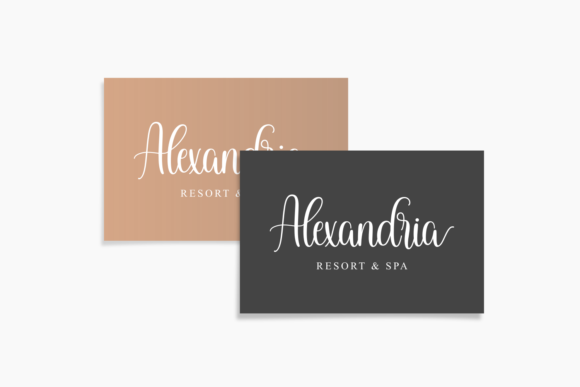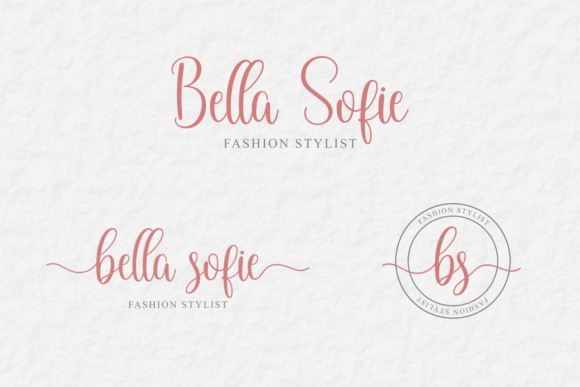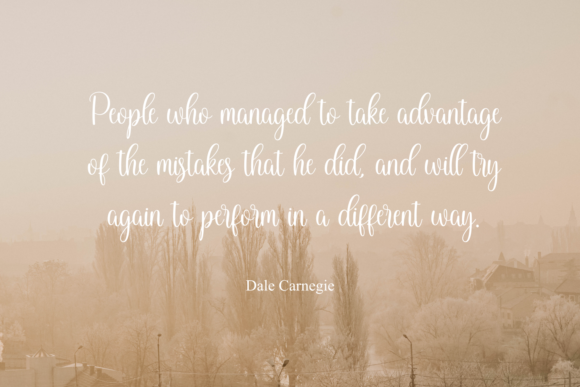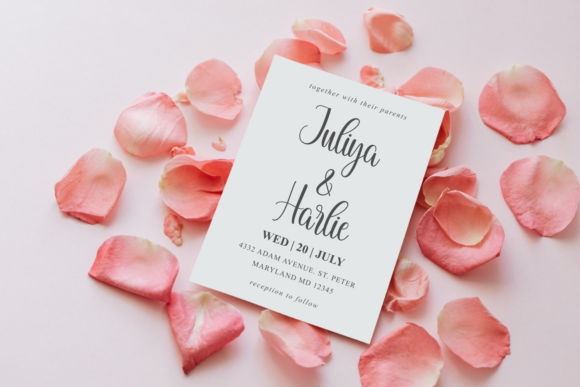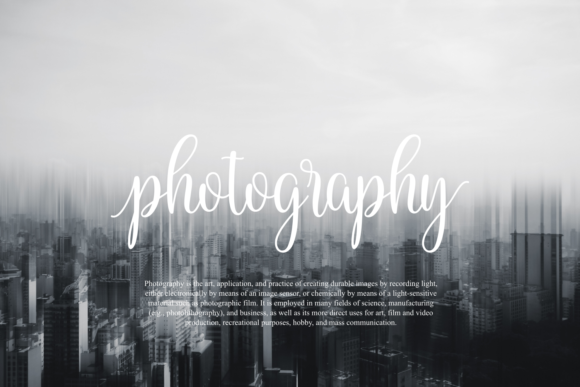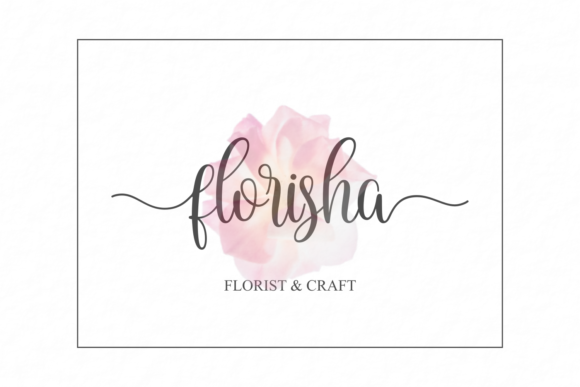
Introducing Butterglow Font: The Ultimate Elegance for Wedding Designs
Are you a designer or crafter looking for the perfect font to elevate your wedding designs? Look no further than Butterglow, a stunning thin lettered and graceful script font that’s sure to captivate your audience. With its ravishing style and ease of use, Butterglow is the ideal choice for creating breathtaking wedding designs that will leave a lasting impression.
What Makes Butterglow Font So Special?
Butterglow is more than just a font – it’s an experience. Its delicate and elegant strokes are carefully crafted to evoke a sense of romance and sophistication, making it perfect for wedding invitations, decorations, and other celebratory materials. Whether you’re a seasoned designer or a DIY crafter, Butterglow is designed to help you create beautiful and memorable designs with ease.
The Benefits of Butterglow’s Thin Lettered and Graceful Script Style
The thin lettered and graceful script style of Butterglow offers a range of benefits for designers and crafters. For one, it adds a touch of elegance and refinement to any design, making it perfect for high-end wedding designs. Additionally, the font’s delicate strokes and flowing curves create a sense of movement and fluidity, adding visual interest and depth to your designs.
PUA Encoding: Unlocking Endless Creative Possibilities
One of the standout features of Butterglow is its PUA (Private Use Area) encoding. This means that you can access all glyphs and swashes with ease, giving you unparalleled creative freedom to customize your designs. With PUA encoding, you can mix and match different characters and swashes to create unique and intricate designs that reflect your personal style.
How to Use Butterglow Font in Your Wedding Designs
Using Butterglow in your wedding designs is incredibly easy. Here are a few tips to get you started:
- Pair Butterglow with complementary fonts to create a striking contrast and add visual interest to your designs.
- Experiment with different swashes and glyphs to add a personal touch to your designs.
- Use Butterglow for wedding invitations, decorations, and other celebratory materials to create a cohesive and elegant look.
Why Designers and Crafters Love Butterglow Font
Butterglow has quickly become a favorite among designers and crafters, and for good reason. Here are just a few reasons why:
- Its unique and elegant style sets it apart from other fonts, making it perfect for designers and crafters who want to stand out from the crowd.
- The font’s PUA encoding makes it incredibly versatile and easy to use.
- Butterglow’s thin lettered and graceful script style is perfect for creating beautiful and memorable wedding designs.
In conclusion, Butterglow is a truly exceptional font that’s perfect for designers and crafters who want to create stunning wedding designs. With its ravishing style, ease of use, and PUA encoding, Butterglow offers endless creative possibilities for anyone looking to elevate their designs. Whether you’re a seasoned designer or a DIY crafter, Butterglow is sure to become your go-to font for all your wedding design needs.